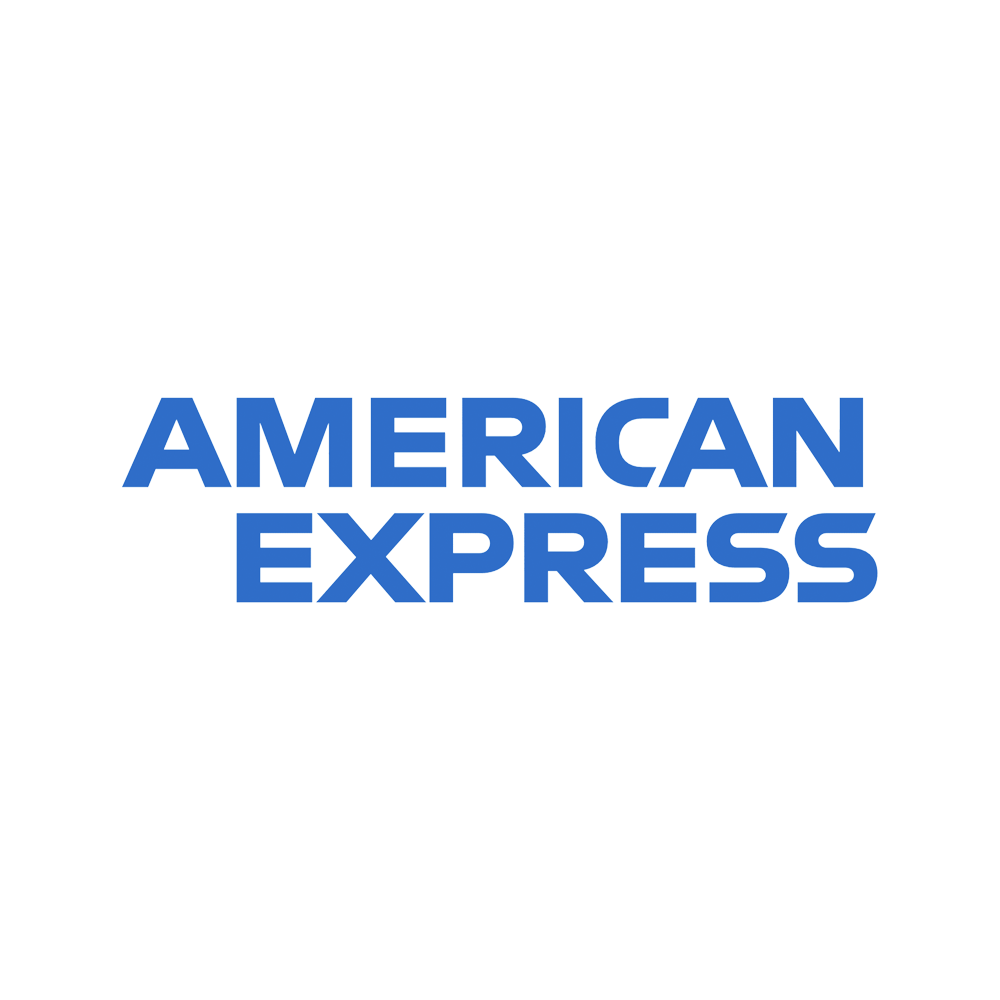
American Express (AMEX) Font
LogoAmerican Express (Amex) is a global financial services company best known for its credit cards, charge cards, and traveler’s cheques. Founded in 1850, it has built a reputation for premium customer service, travel benefits, and exclusive rewards.
The American Express logo uses a bold and modern typeface. The current version of the logo features AMEX Black and AMEX Blue, custom fonts designed specifically for the brand. However, a close alternative is Helvetica Neue Bold and Lemon Milk, which captures the clean, geometric look of the American Express wordmark.